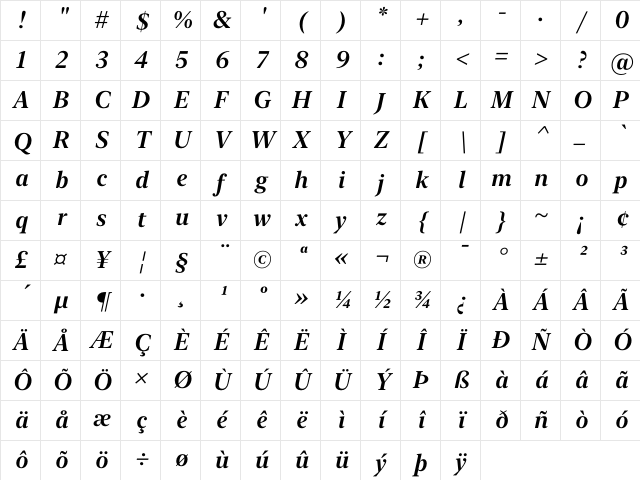
New York Large Semibold Italic
Style: Semibold Italic
Foundry: Apple Inc.
Designer: Apple Inc.
Complete New York Large Semibold Italic glyph index. Displaying only characters natively supported by New York Large Semibold Italic font.
Design Context for New York Large
New York Large is a composed and adaptable typeface that performs quietly and consistently across a wide range of design contexts. The slanted form adds forward momentum and visual energy. Its bold stroke weight gives it real presence on the page.